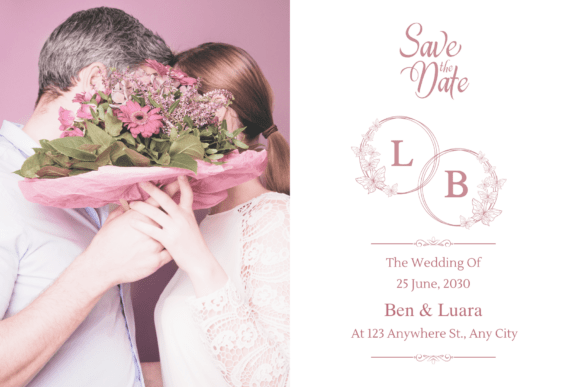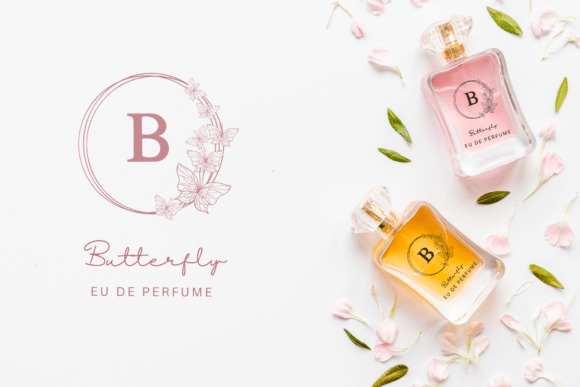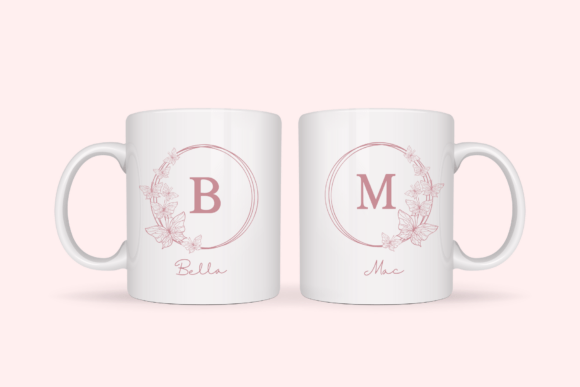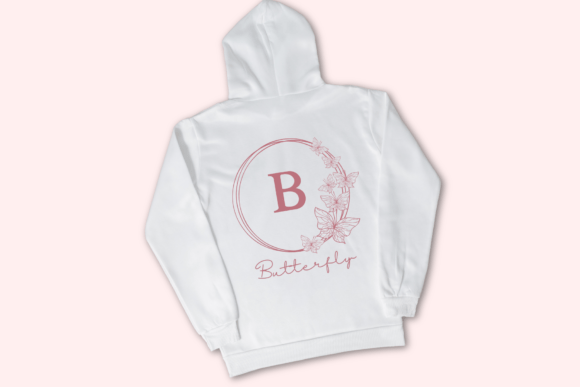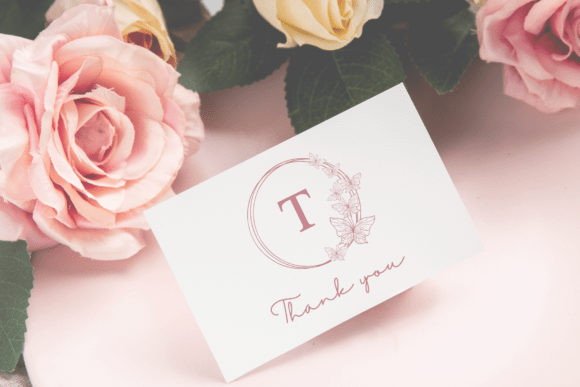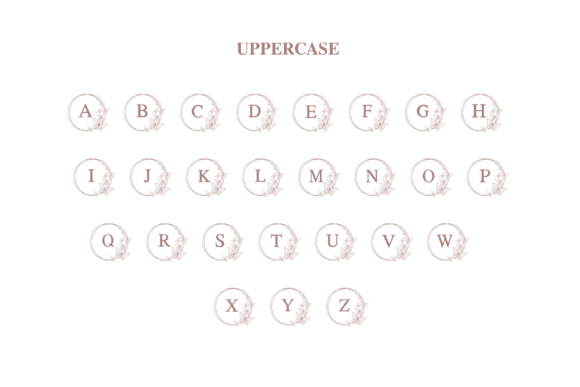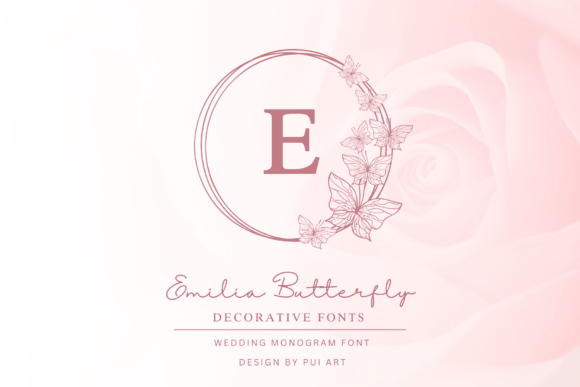
Introducing Emilia Butterfly Monogram Font: Elevate Your Designs with Elegance
Are you a designer or crafter looking for a unique and sophisticated font to add a touch of charm to your creations? Look no further than the Emilia Butterfly Monogram Font. This elegant font is specifically designed for special occasions, making it perfect for invitations, wedding cards, and other celebratory designs.
What Makes Emilia Butterfly Monogram Font Special?
The Emilia Butterfly Monogram Font stands out from other fonts due to its distinctive design. The font features decorative letters carefully crafted inside a beautiful butterfly frame. This stunning combination of typography and illustration creates a truly eye-catching effect that is sure to impress.
Whether you’re designing a wedding invitation, a birthday card, or a baby shower announcement, the Emilia Butterfly Monogram Font adds a touch of whimsy and sophistication. The font’s elegant design makes it versatile enough to be used for various occasions, from formal events to casual gatherings.
Key Features of Emilia Butterfly Monogram Font
- Elegant Design: The font features decorative letters inside a beautiful butterfly frame, creating a stunning visual effect.
- Perfect for Special Occasions: The font is specifically designed for invitations, wedding cards, and other celebratory designs.
- Versatile: The font can be used for various occasions, from formal events to casual gatherings.
Tips for Getting the Most Out of Emilia Butterfly Monogram Font
- Experiment with Different Colors: The font looks great in a variety of colors, so don’t be afraid to experiment and find the perfect hue for your design.
- Pair with Other Fonts: The Emilia Butterfly Monogram Font pairs well with other fonts, so try combining it with a sans-serif font for a modern look.
- Use in Combination with Illustrations: The font’s butterfly frame makes it a great match for illustrations, so try using it in combination with other illustrations to create a stunning design.
The Emilia Butterfly Monogram Font is a beautiful and elegant font that is perfect for designers and crafters looking to add a touch of charm and sophistication to their creations. With its distinctive design and versatile nature, this font is sure to become a staple in your design library.